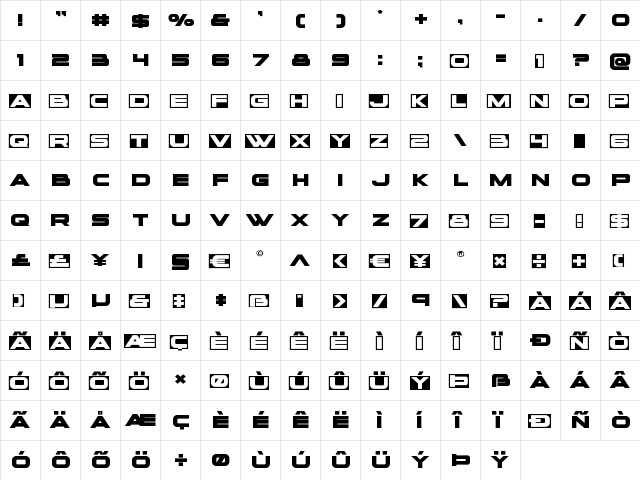
voxBOX Expanded Expanded
Design Context for voxBOX Expanded Typeface
voxBOX Expanded is a composed and adaptable typeface that performs quietly and consistently across a wide range of design contexts.